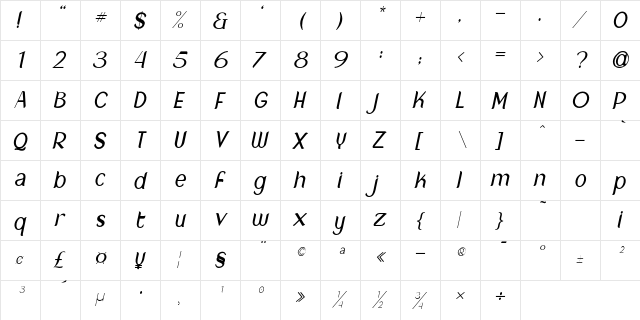
New Crown Light Italic_DEMO Font Preview
| Designer | Omotu Studio 2020 |
Design Context for New Crown Typeface
New Crown takes a measured approach to typography — its balanced proportions and neutral character make it a reliable workhorse for both digital and print work. The slanted form adds forward momentum and visual energy. Its slender proportions lend an understated elegance to any composition.